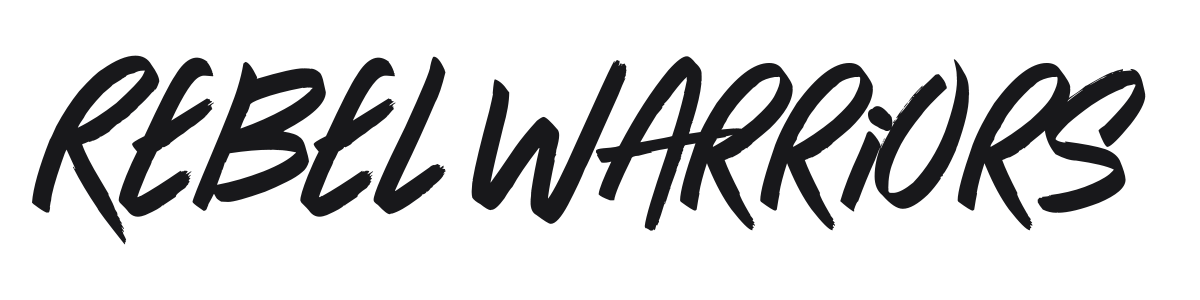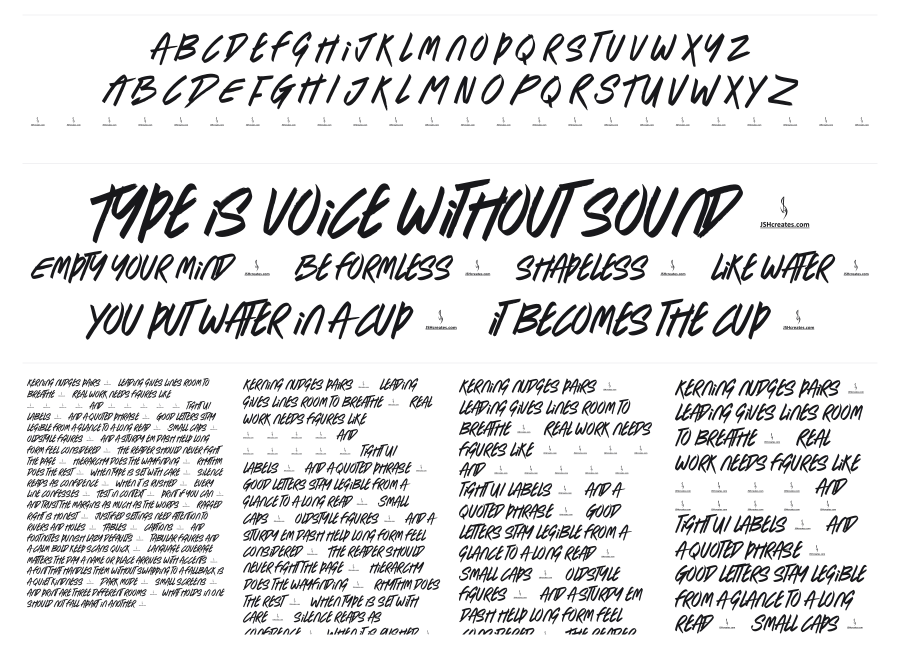
Rebel Warriors
Rebel Warriors is a bold, aggressive brush script with a fierce forward italic lean and deliberately rough, frayed stroke edges. The fast, gestural construction evokes street art and graffiti, channeling raw energy into every character. It commands attention at large sizes and suits anything that needs attitude: band posters, sports branding, game titles.